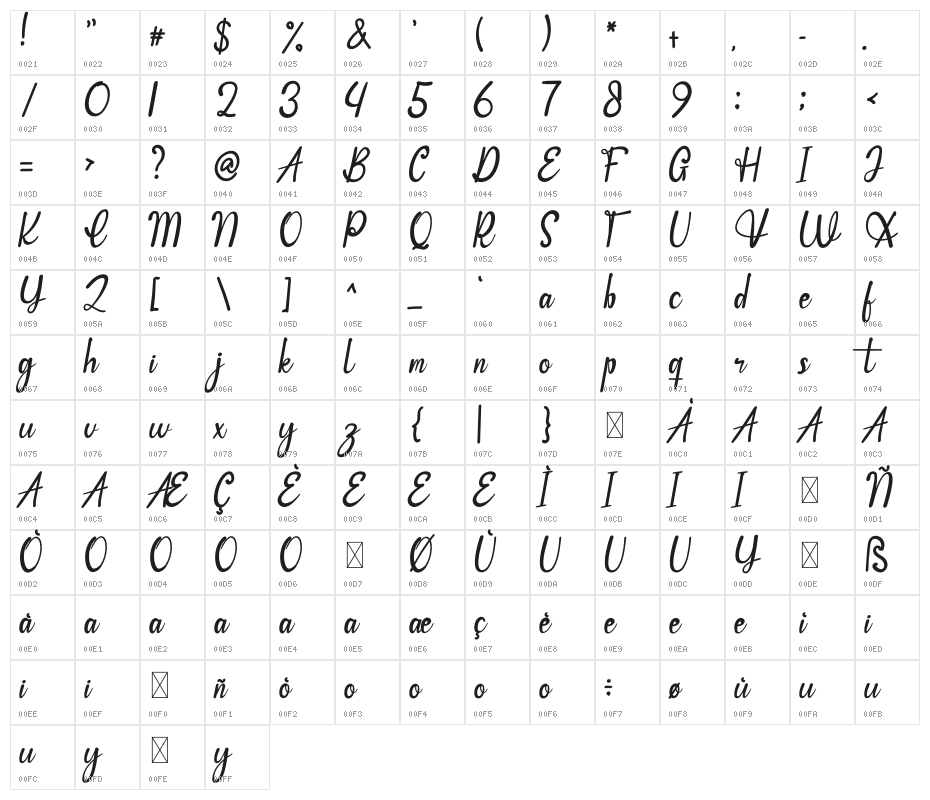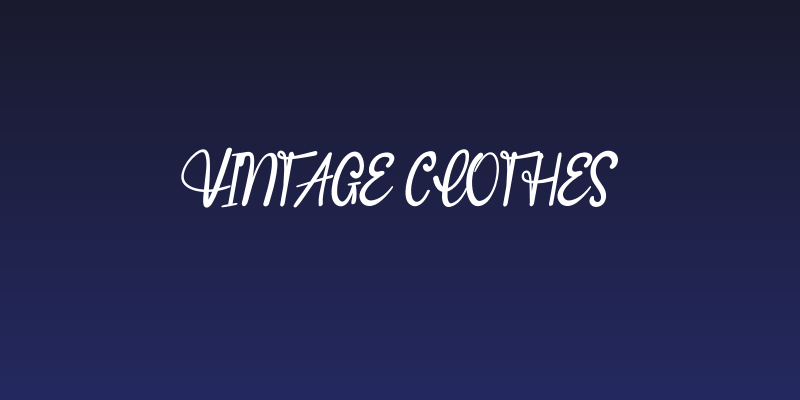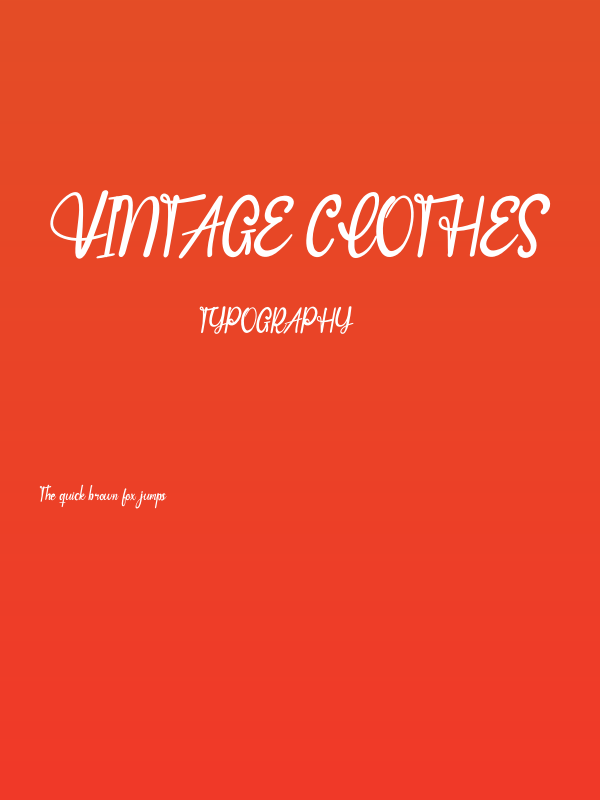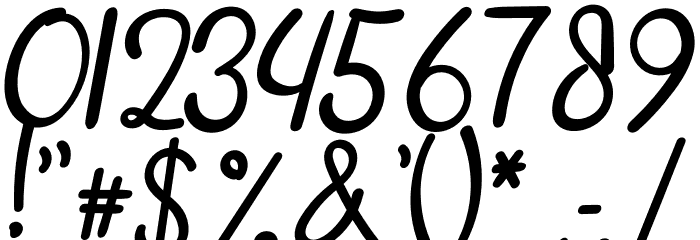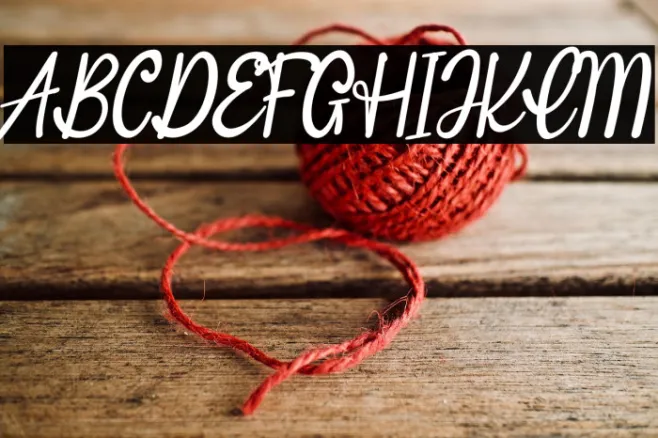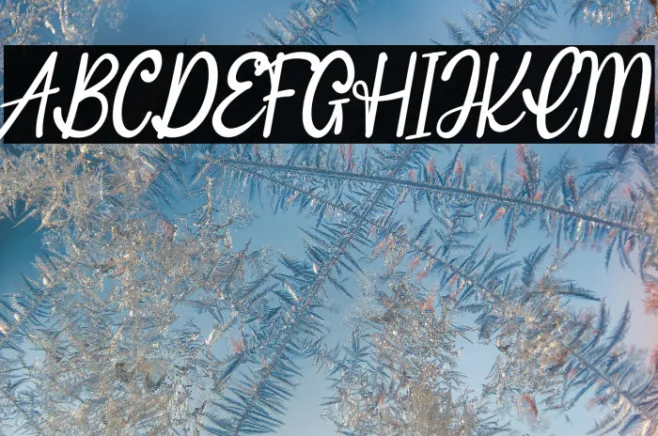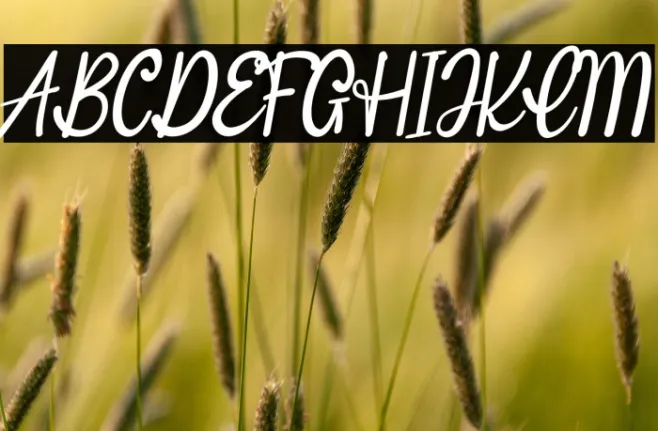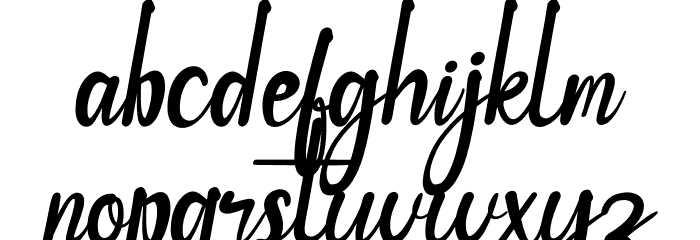
Vintage Clothes Font
Vintage Clothes Description
This font exudes a lively and dynamic script style, characterized by its fluid, cursive strokes and elegant flair. The uppercase letters are bold and slightly slanted, giving a sense of movement and energy. The lowercase letters maintain a consistent flow, with some characters featuring distinctive loops and swashes that add to its charm. The numerals are well-integrated into the script style, maintaining the same fluidity and elegance. Special characters are creatively designed, fitting seamlessly with the overall aesthetic. This font is perfect for projects that require a touch of sophistication and personality.